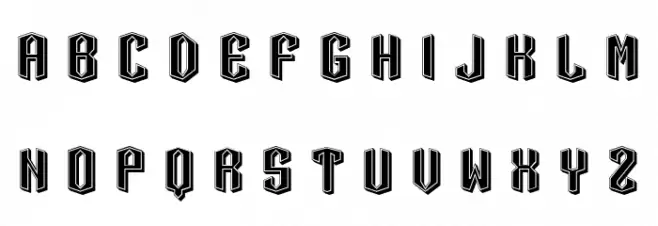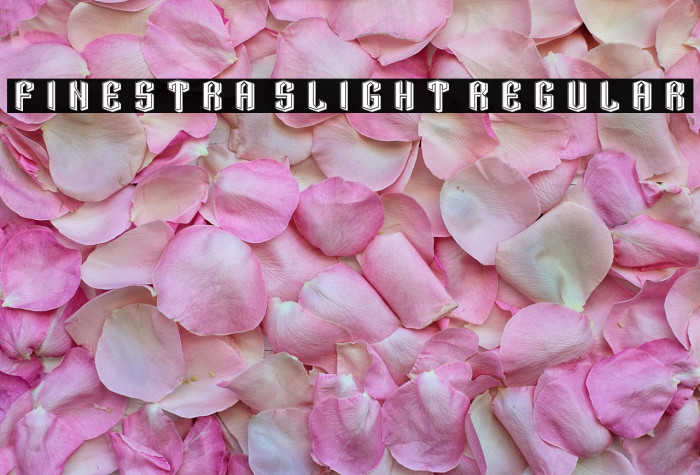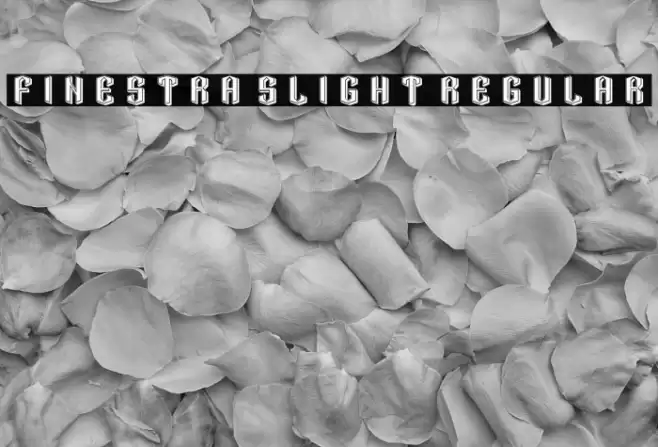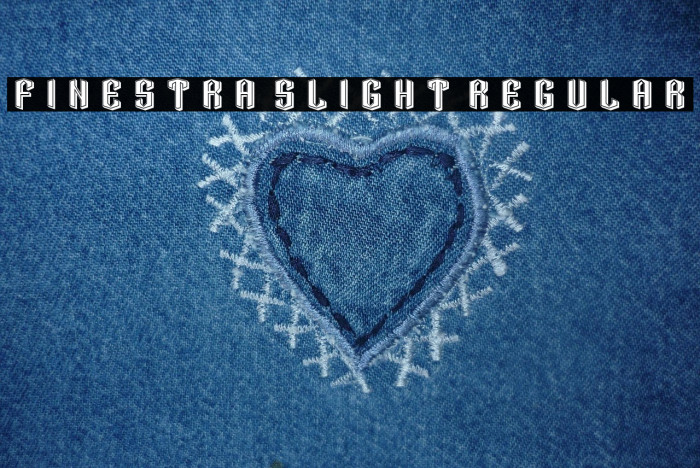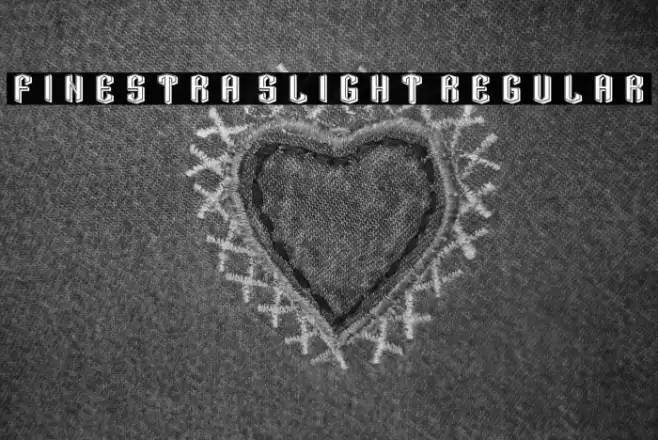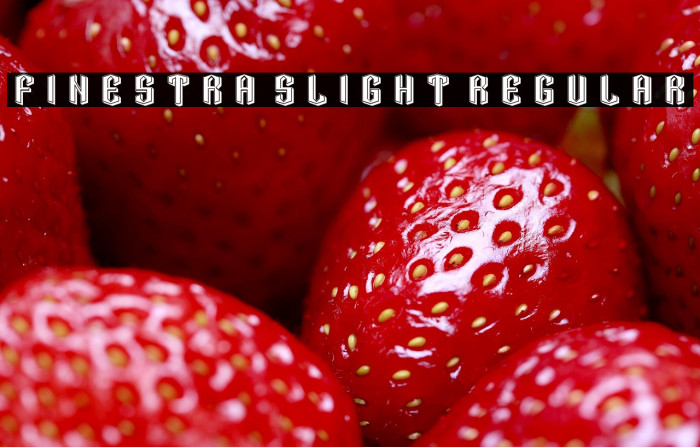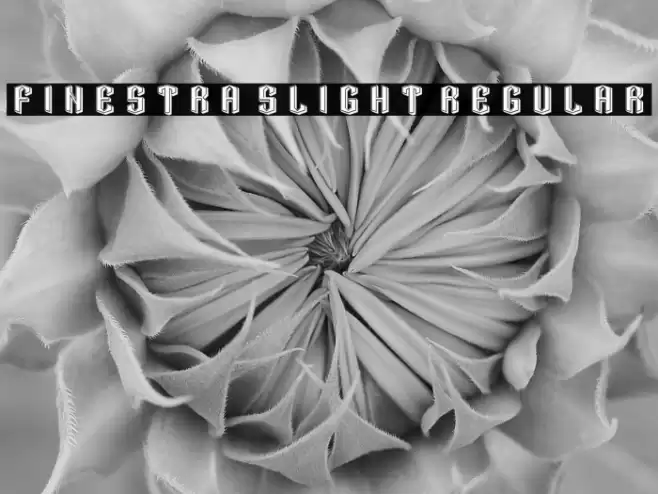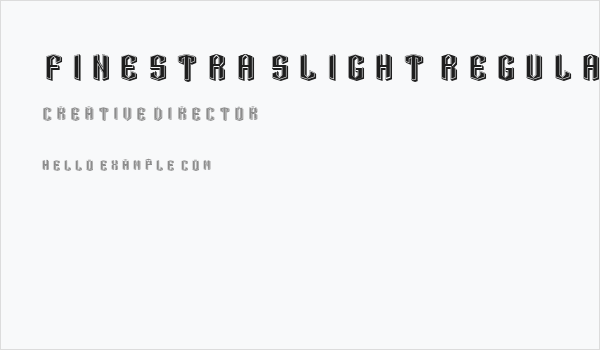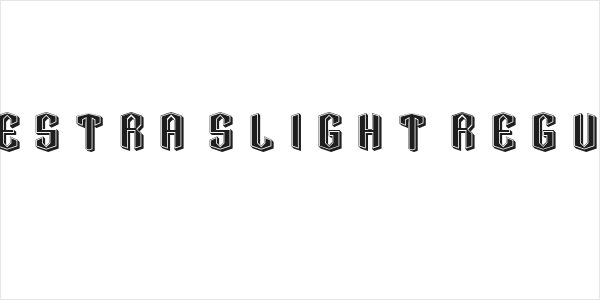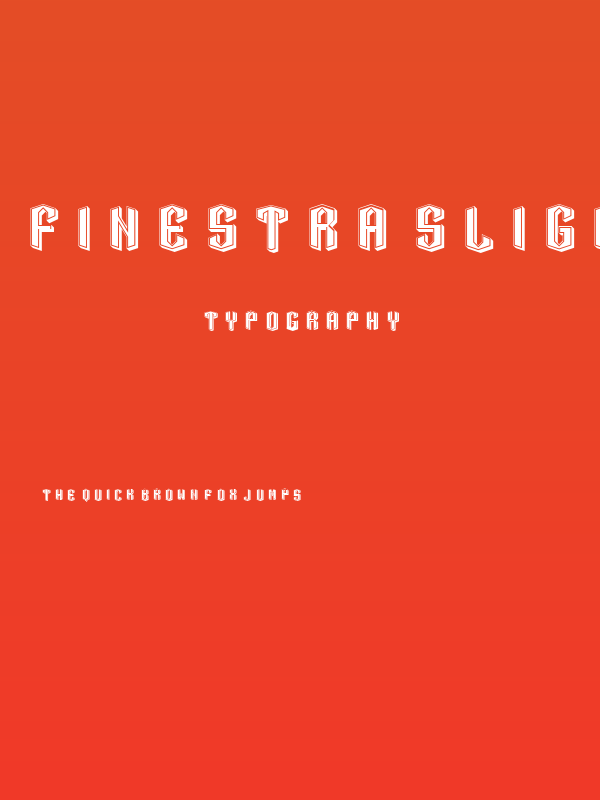
Finestra Slight Regular Font
Finestra Slight Regular Description
This font features a bold and striking design with a three-dimensional effect, giving each character a sense of depth and presence. The letters are structured with sharp, angular lines and a consistent geometric style, creating a modern and futuristic appearance. The use of shadowing and outlines enhances the 3D illusion, making it ideal for eye-catching displays. The uppercase letters maintain a uniform height, while the overall design is clean and precise, suitable for various creative applications.
| Proposed Projects | Ideal for branding, posters, video game titles, and any project requiring a futuristic and impactful look. |